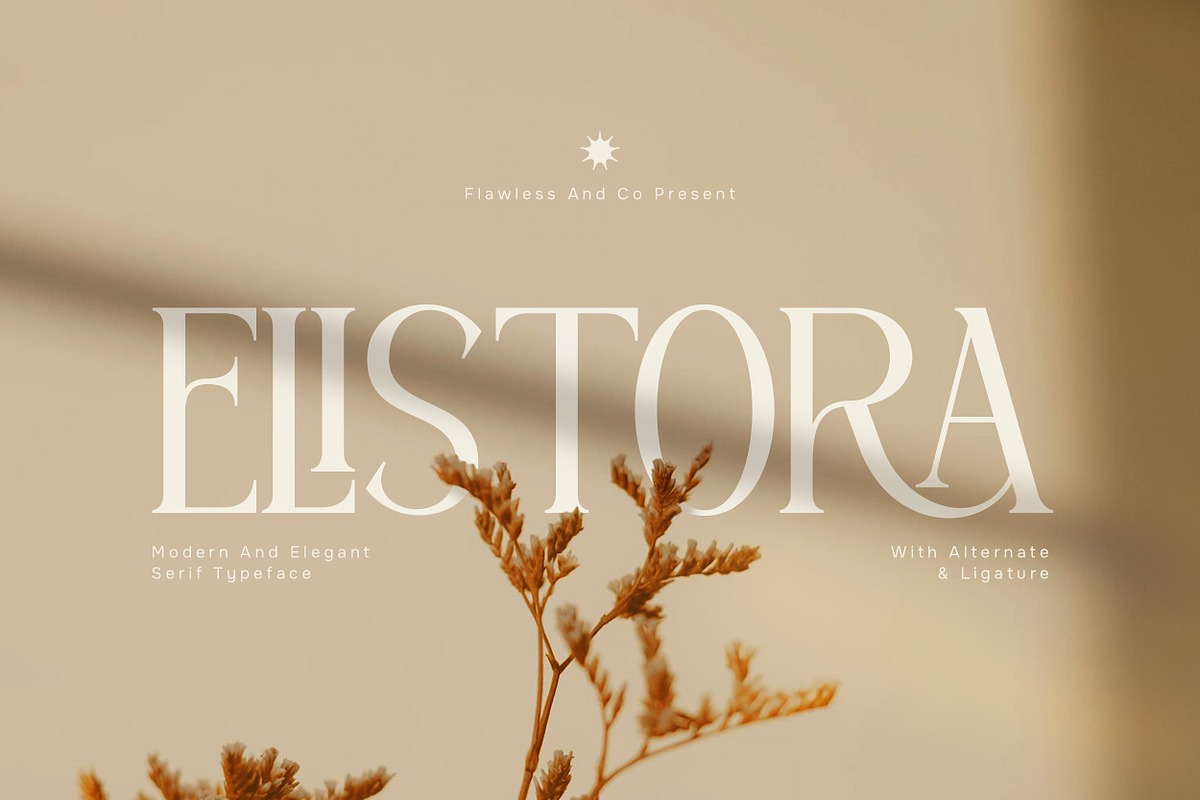
Elistora – Elegant Serif Font
Elistora – Elegant Serif Font brings a balanced structure and contemporary look, making it suitable for both digital and print design. Elistora is a modern and elegant serif font that captures the essence of sophistication with a refined contemporary touch. Designed with smooth curves, graceful serifs, and balanced proportions, Elistora creates a polished and luxurious look that elevates any design it’s applied to. Blending classic serif beauty with modern simplicity, this font offers a timeless aesthetic while remaining fresh and versatile. Its clean structure ensures excellent readability, while its elegant details add a distinctive and stylish personality.